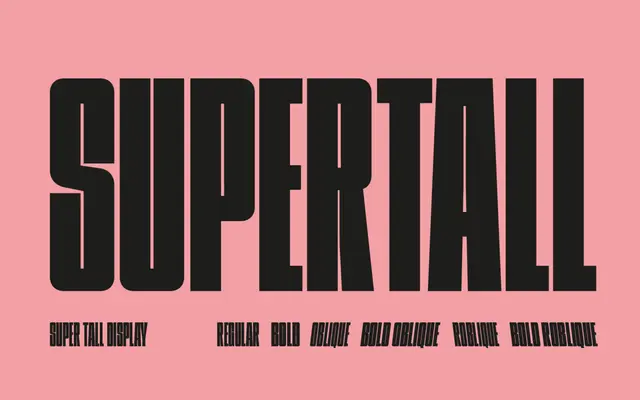
Supertall Condensed
Colt Type
Supertall Condensed specimen from Colt Type
A tall, condensed display face that draws on 80s video game and movie title lettering for large-scale headline work.
Built for filling space at large sizes, it offers Regular and Bold weights each with standard obliques and reverse obliques, giving designers six styles in total. The reverse oblique option adds a distinctly retro, almost italicless feel suited to poster and title work. Inspiration runs from hard-hitting film titles to 8-bit game screens.
A tall, heavily condensed display face drawing on 80s video game and movie title aesthetics, designed purely for large-scale impact rather than text use.